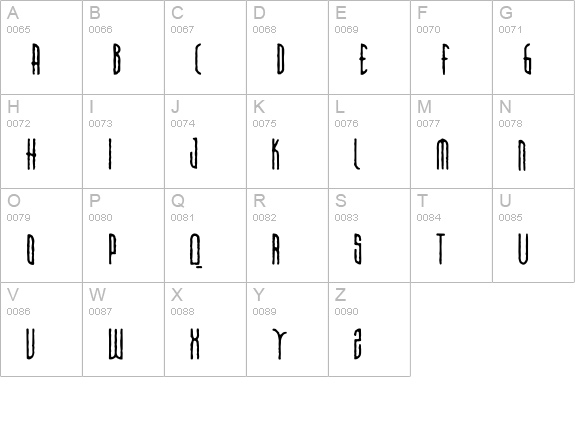
DeccoModern-Organic Font Details
Introducing DeccoModern-Organic, a stunning and versatile font that seamlessly blends modern aesthetics with organic elements. This unique typeface exudes a sense of sophistication and creativity, making it perfect for a wide range of design projects. With its clean lines and natural curves, DeccoModern-Organic is sure to capture attention and add a touch of elegance to any layout. Whether used for branding, packaging, editorial design, or any other creative endeavor, this font will elevate your projects to new heights. What's more, DeccoModern-Organic is available for free download at FontsMarket.com, allowing designers and creatives to access this beautiful font without breaking the bank. Don't miss out on the opportunity to enhance your designs with the timeless charm of DeccoModern-Organic. Download it today and let your creativity soar!